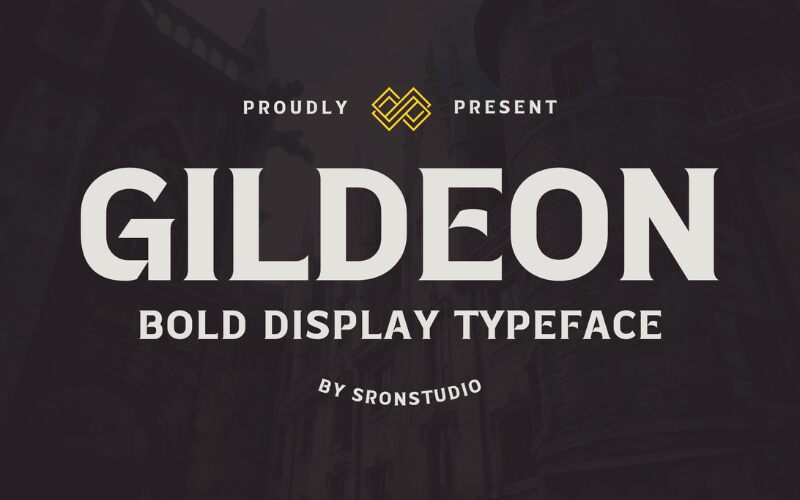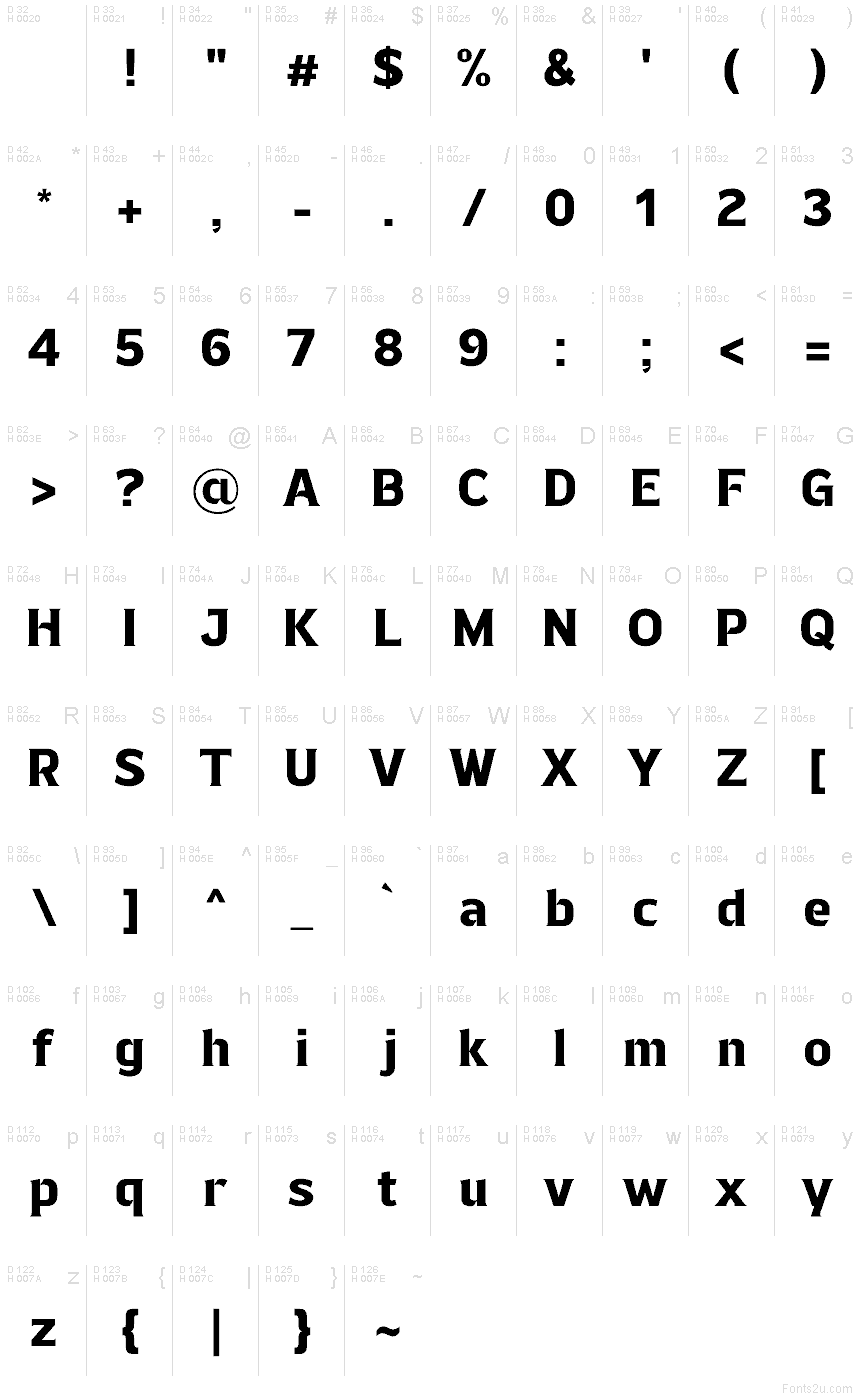
Gildeon
Gildeon font by Sronstudio is a free bold sculpted serif display font. It stands out with stone-carved edges and wedge-like serifs that feel chiseled rather than drawn, giving each letter a weighty, inscriptional presence. The curves are broad and confident, then sliced by crisp, angular cuts that add snap and rhythm—classic meets contemporary without slipping into cliché.
Using Gildeon, headlines lock up cleanly and read with impact, making it a natural fit for posters, beer or coffee packaging, book covers, game branding, menus, and magazine mastheads. This free font thrives big and tight; try modest tracking and pair it with a simple geometric sans to let its sculpted personality lead.